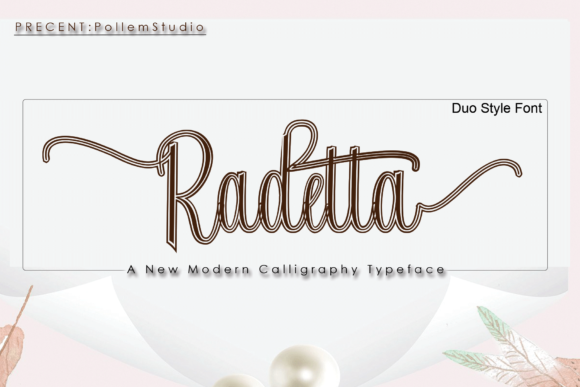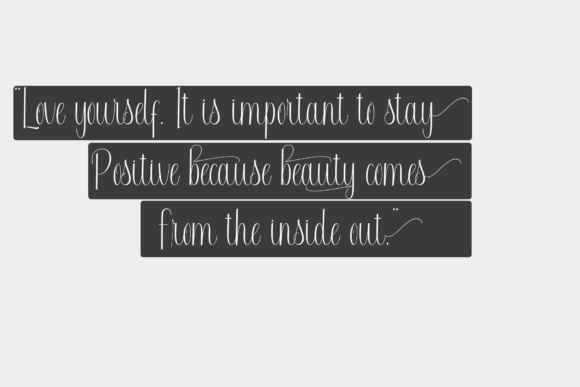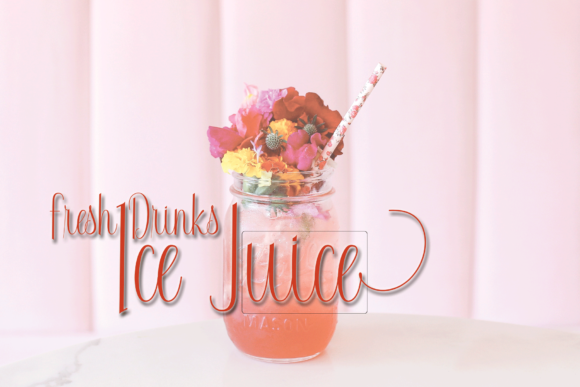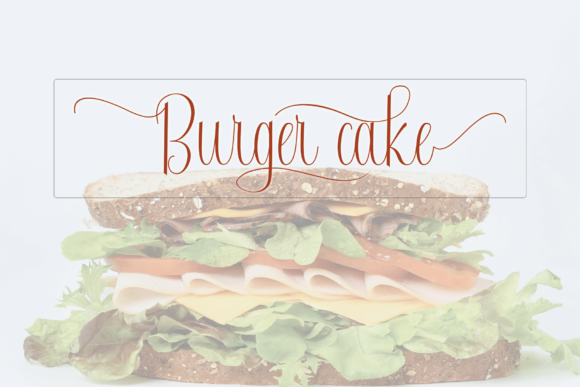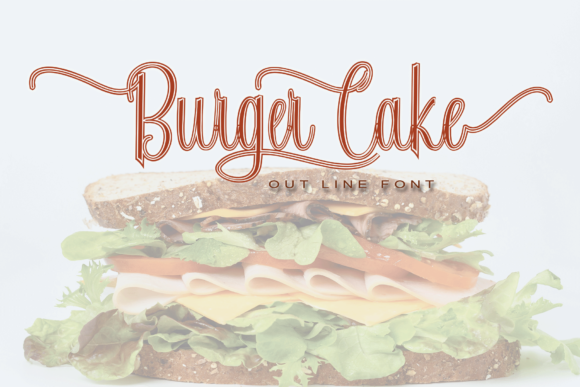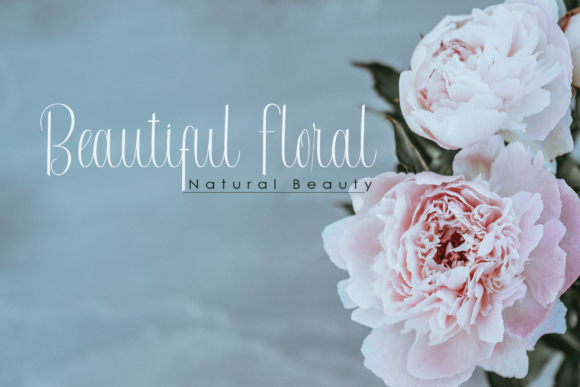
Introduction to Radetta Font
Do you remember the moment when you stumbled upon the perfect font for your creative project? The one that made your design pop, and you couldn’t wait to share it with the world? For many designers, that moment is what drives their passion for creating beautiful and unique visual experiences.
One such font that has captured the hearts of designers is the Radetta Font, a light and fun handwritten font with an incredibly striking feel. With its bold swashes and playful charm, Radetta Font is a design resource that can elevate any creative project. Whether you’re working on a personal blog, a marketing campaign, or a product design, Radetta Font is a high-quality font that can add a touch of personality to your work.
Key Features of Radetta Font
- Radetta Font is designed with a unique, elegant style that can add a touch of sophistication to any design project.
- Features a clean and minimalist design, making it an excellent resource for graphic designers, illustrators, and artists.
Honest Review: Radetta Font
As a designer, I’m always on the lookout for high-quality fonts to elevate my creative projects. Recently, I had the chance to try out the Radetta Font, and I’m excited to share my honest review with you.
What works well: ✨ The Radetta Font is a stunning script font that’s perfect for adding a touch of elegance to your design. The letterforms are intricately designed, making it ideal for creative projects that require a high level of sophistication. The font also comes in a transparent background option, which is super convenient for designers who want to easily overlay text on images.
What doesn’t: ⚠️ While the Radetta Font is a great addition to any designer’s arsenal, I did notice that it’s not free to download. This might be a limitation for designers on a tight budget or those who prefer free design resources. Additionally, the font might not be suitable for very small font sizes, as the letterforms can become slightly pixelated.
Overall impression: The Radetta Font is a beautiful and versatile script font that’s perfect for designers who want to add a touch of sophistication to their creative projects. While it may not be free, its high quality and transparent background options make it a valuable investment for any serious designer.
- Perfect for creative projects that require a high level of sophistication
- Available in a transparent background option
- Might not be suitable for very small font sizes